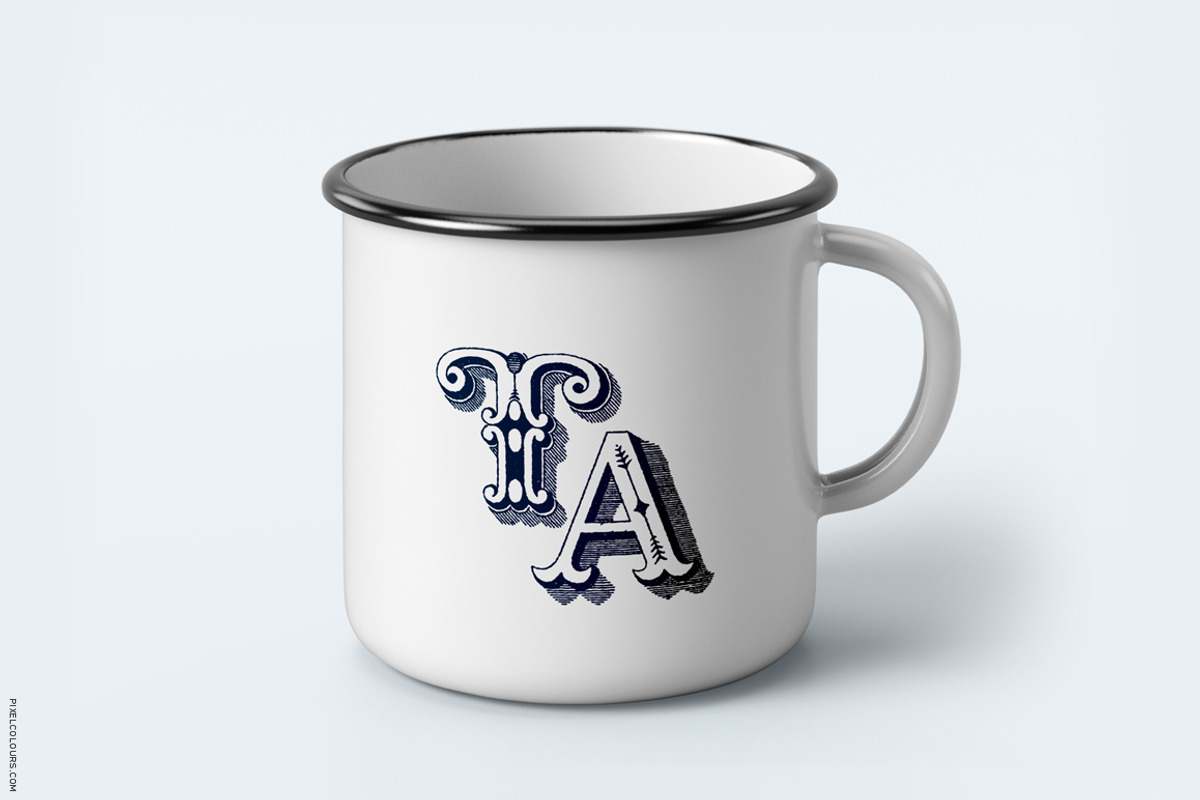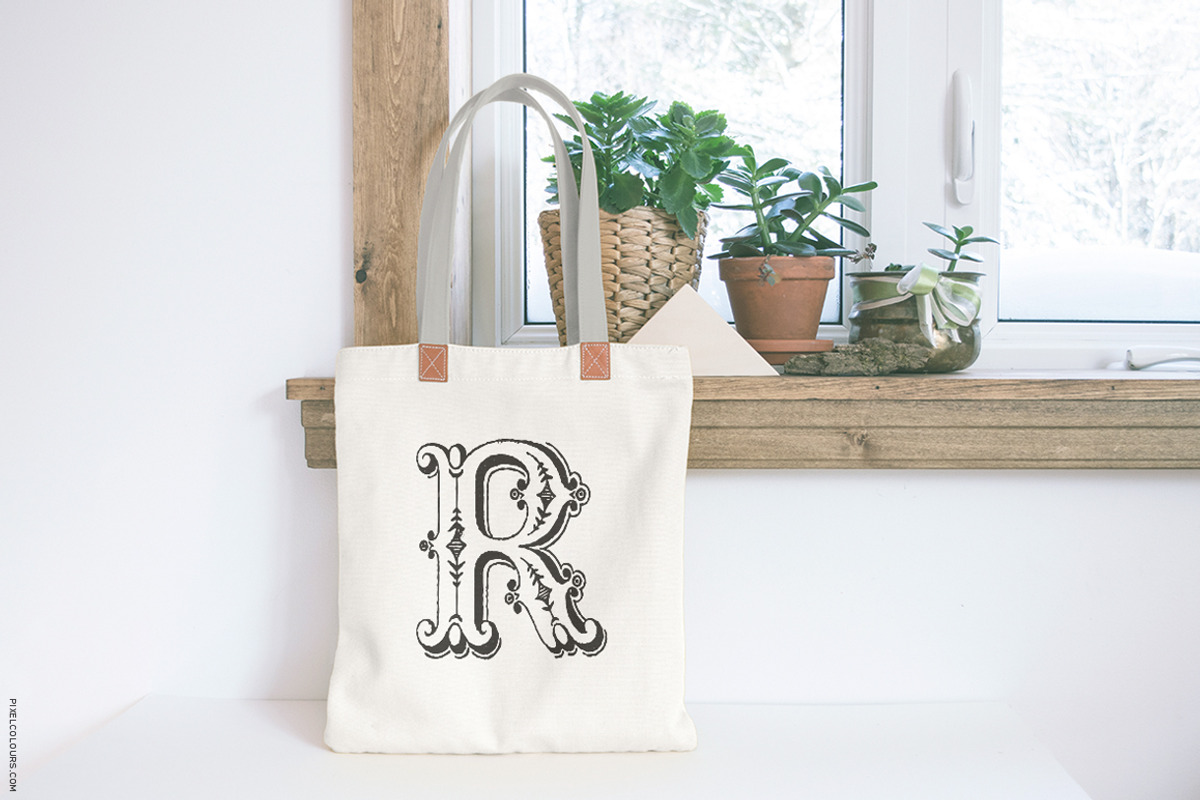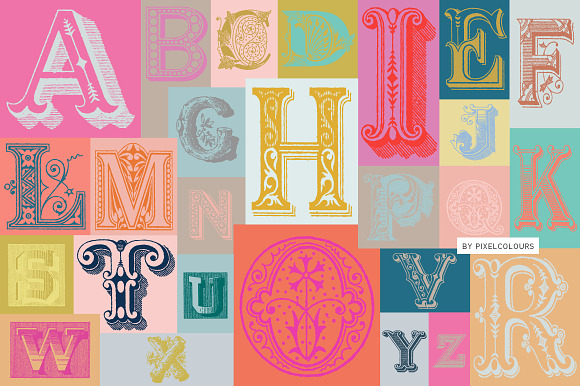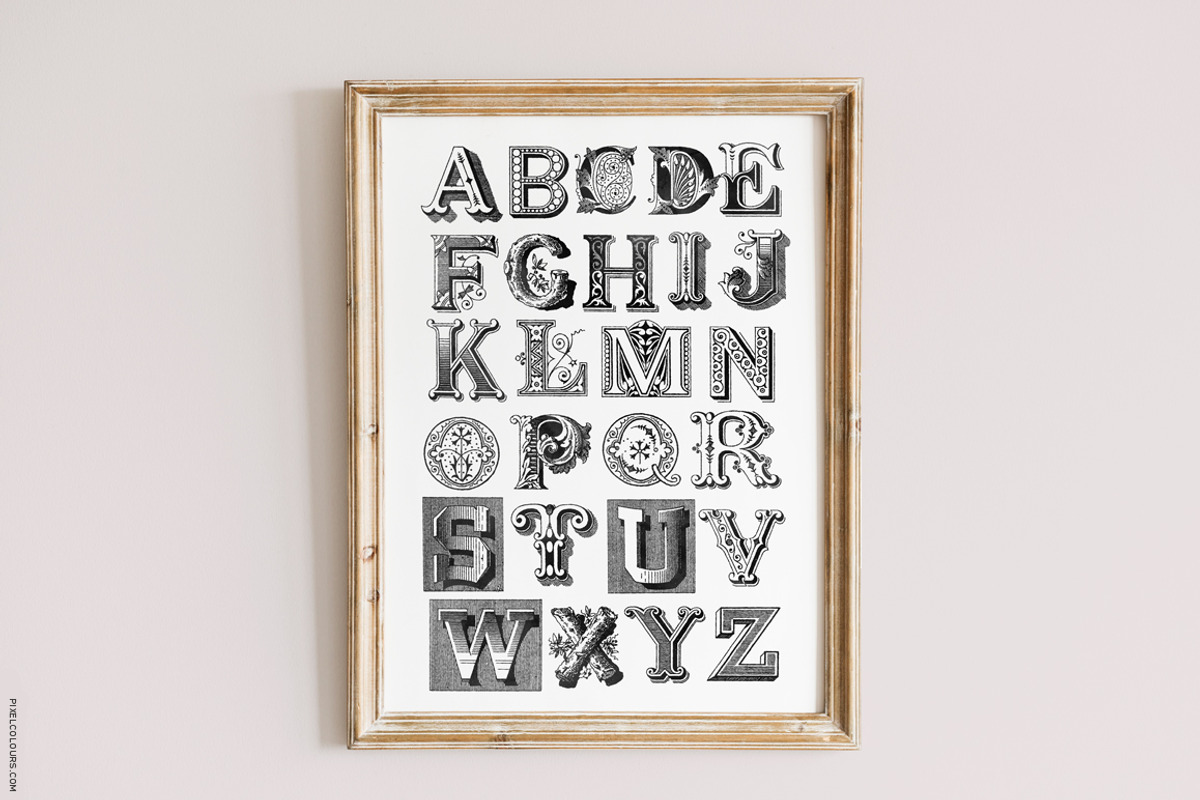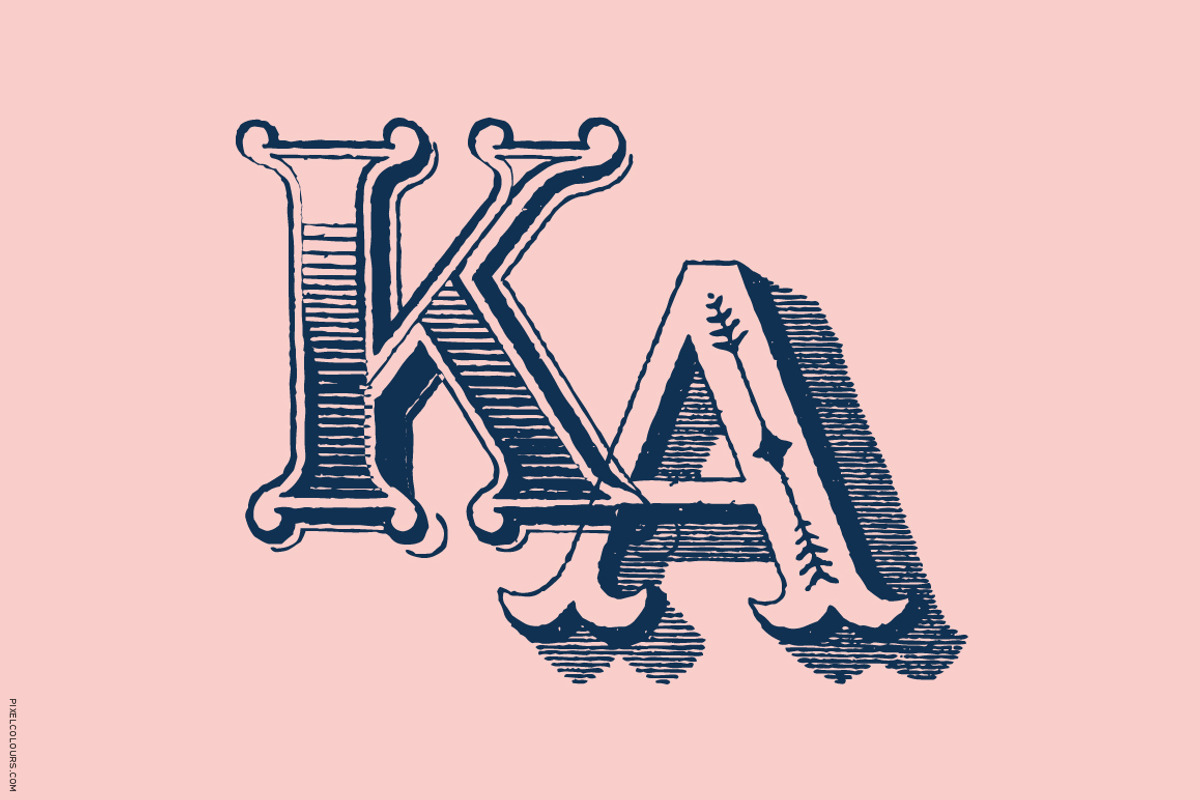
Antique Ornaments Alphabet Font
Antique Ornaments Alphabet Font is an ornamental alphabet great for doing monogram products, wedding invitations, crafts, etc. Includes uppercase letters only A-Z.
- Includes uppercase letters only A-Z.
Antique Ornaments Alphabet Font by pixelcolours fits naturally into Branding, posters, packaging, typography.